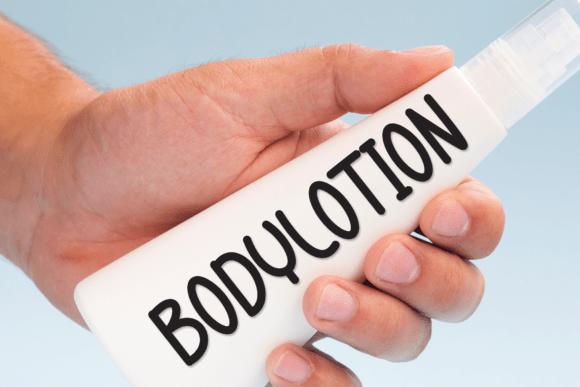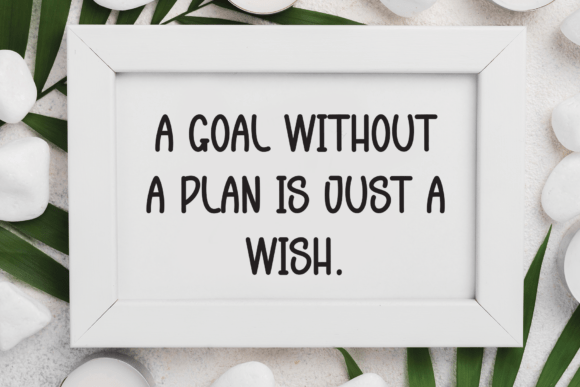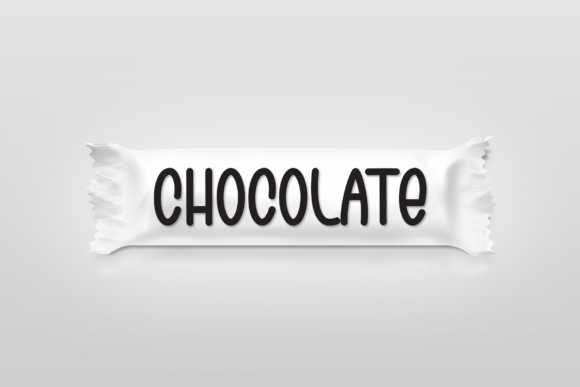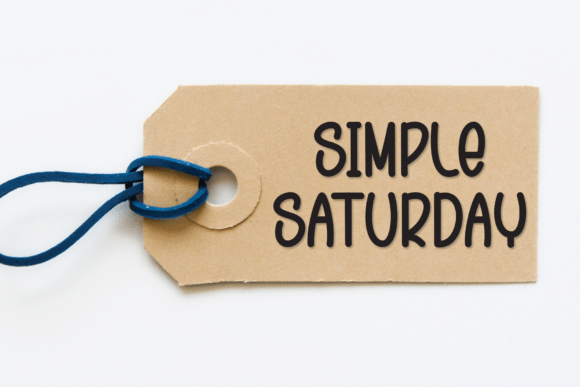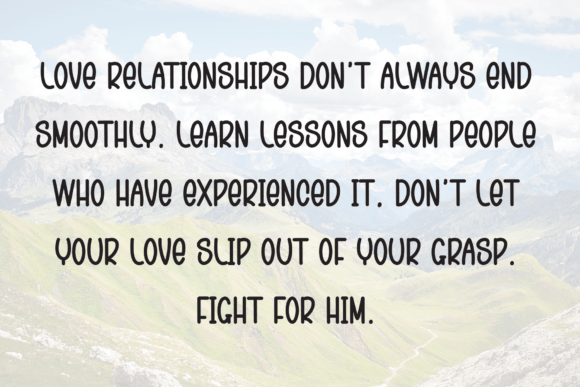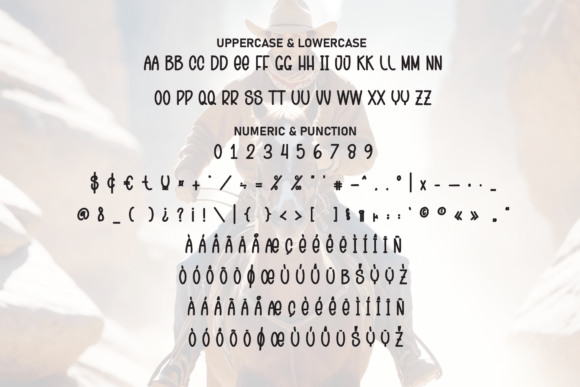
Discover the Delightful Derby Cowboy Font: Adding a Touch of Whimsy to Your Designs
Are you on the hunt for a font that can add a dash of personality and warmth to your design projects? Look no further than the enchanting Derby Cowboy Font. This handwritten display font is a true gem, boasting a whimsically captivating allure that is sure to leave a lasting impression. With its endearing and friendly presence, Derby Cowboy Font brings an inherent warmth and cheer to your design concepts effortlessly, making it an indispensable choice for designers and crafters alike.
The Charm of Derby Cowboy Font
What sets Derby Cowboy Font apart from other fonts is its particular charm. This font is not just a means of communication; it’s an experience. Its sweet and lively demeanor infuses your creations with a breath of joyfulness, making it perfect for projects that require a personal touch. Whether you’re designing wedding invitations, charming cards, or any other project that requires a unique and playful twist, Derby Cowboy Font is the perfect choice.
Unforgettable Wedding Invitations and Charming Cards
Wedding invitations and cards are often the first glimpse into the personality and style of the occasion. With Derby Cowboy Font, you can create unforgettable wedding invitations that set the tone for a joyous celebration. Its whimsical and friendly presence adds a touch of warmth and personality to your designs, making them truly special. Similarly, charming cards created with Derby Cowboy Font are sure to delight the recipient, making it an excellent choice for greeting cards, thank-you notes, and more.
Adding an Enchanting Twist to Your Designs
Derby Cowboy Font offers a unique opportunity to give your design projects an enchanting twist. Its enticingly sweet and lively demeanor adds a touch of magic to your creations, making them stand out from the crowd. Whether you’re a designer, crafter, or DIY enthusiast, this font is sure to inspire you to create something truly special. From rustic wedding decor to whimsical children’s party invitations, Derby Cowboy Font is the perfect choice for anyone looking to add a dash of personality to their designs.
Key Features of Derby Cowboy Font
- Handwritten Display Font: Derby Cowboy Font is a handwritten display font that boasts a unique and personal touch.
- Whimsically Captivating: Its whimsical and captivating allure makes it perfect for projects that require a touch of personality.
- Endearing and Friendly: The font’s endearing and friendly presence brings warmth and cheer to your design concepts.
- Perfect for Wedding Invitations and Cards: Derby Cowboy Font is an excellent choice for creating unforgettable wedding invitations and charming cards.
- Easy to Use: This font is easy to use and can be incorporated into a variety of design projects, from digital files to print materials.
In conclusion, Derby Cowboy Font is a true gem that can add a touch of whimsy and personality to your design projects. Its endearing and friendly presence makes it perfect for creating unforgettable wedding invitations, charming cards, and other design projects that require a unique and playful twist. With its ease of use and versatility, Derby Cowboy Font is an excellent choice for designers, crafters, and DIY enthusiasts alike. So why not give it a try and see the magic it can bring to your designs?